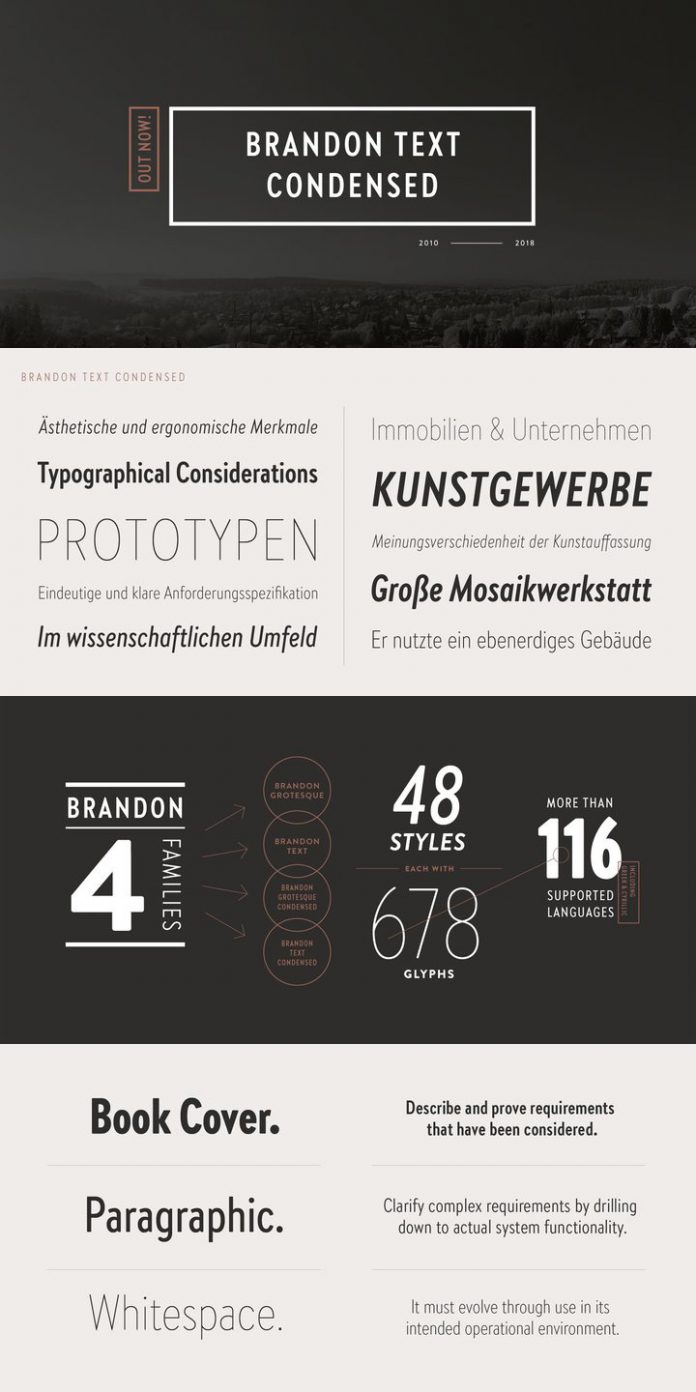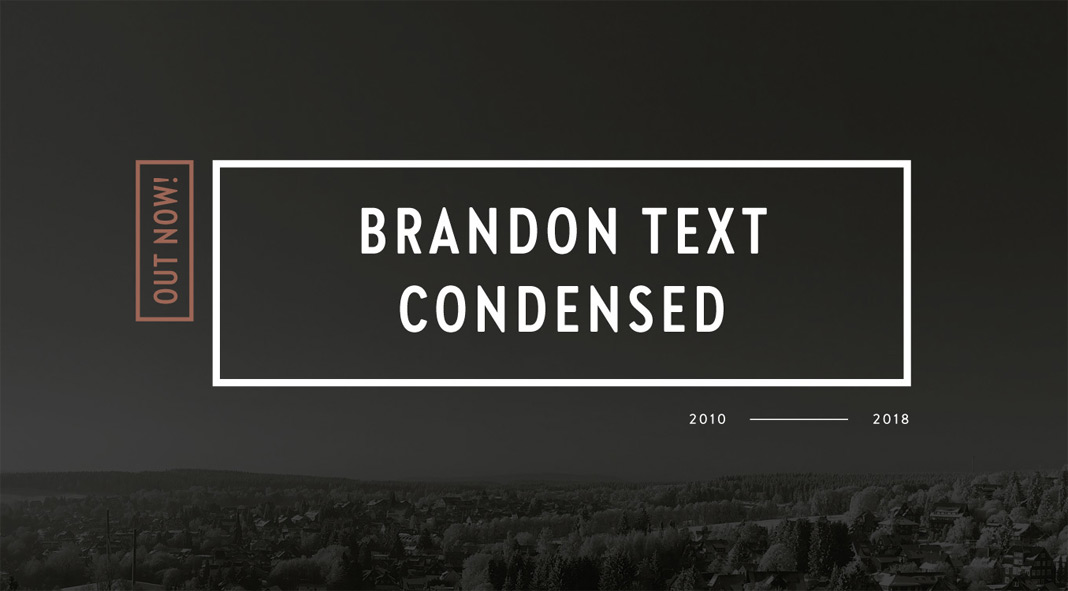
Brandon Text Condensed—the condensed version for the Brandon Text font family.
Just released by German type foundry HVD Fonts, creating the condensed version for the popular Brandon Text family was some kind of the key missing to complete the Brandon series. Brandon Text was originally made as a companion to Brandon Grotesque.
Designer Hannes von Döhren says: “When we started to design Brandon Grotesque Condensed, we felt that there should also be a condensed counterpart for small sizes; so we made Brandon Text Condensed. While a condensed typeface is not just a squeezed original, we took the Grotesque Condensed as a starting point for the Text Condensed version simultaneously we also kept an eye on Brandon Text to find the perfect missing variables.”